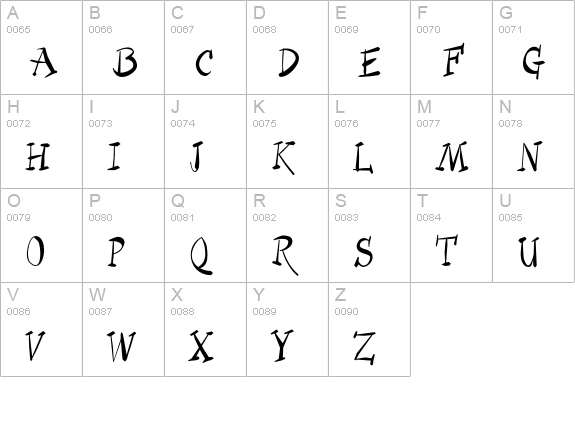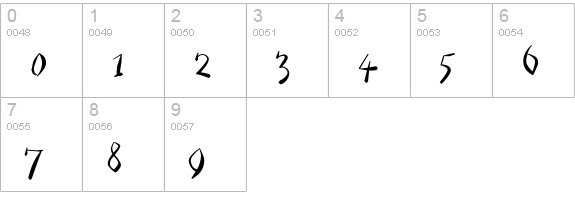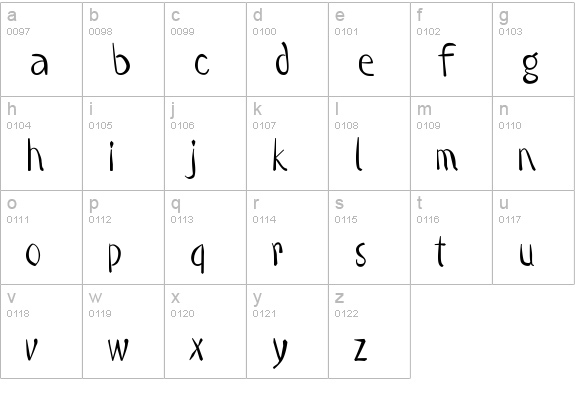
Quill-Extra Font Details
Introducing Quill-Extra, a stunningly elegant font that exudes sophistication and charm. With its graceful curves and exquisite details, this font is perfect for adding a touch of elegance to any project. Whether you're designing a wedding invitation, crafting a beautiful logo, or creating eye-catching headlines, Quill-Extra will effortlessly elevate your work to new heights. Inspired by the timeless beauty of calligraphy, Quill-Extra captures the essence of hand-drawn lettering with its flowing strokes and delicate lines. Each character is meticulously crafted to ensure a seamless and harmonious visual experience. From its graceful ascenders to its elegant descenders, every letter of Quill-Extra is a work of art in itself. But what makes Quill-Extra truly exceptional is not just its captivating design, but also its accessibility. We believe that creativity should be free and easily accessible to all. That's why Quill-Extra is available as a free download exclusively at FontsMarket.com. Now, you can indulge in the beauty of this extraordinary font without any restrictions or limitations. Quill-Extra is the perfect choice for those who value both style and versatility. Its clean and legible design makes it suitable for a wide range of applications, from branding and advertising to editorial design and beyond. Whether you're aiming for a classic or modern look, Quill-Extra effortlessly adapts to any design concept, making it an invaluable asset in your creative arsenal. So why settle for ordinary when you can have extraordinary? Download Quill-Extra today and unlock the boundless possibilities of this stunning font. With its timeless elegance, impeccable craftsmanship, and the fact that it's freely available at FontsMarket.com, Quill-Extra is a font that will truly make your work shine. Elevate your designs to new levels of beauty and sophistication with Quill-Extra - the epitome of grace and style.